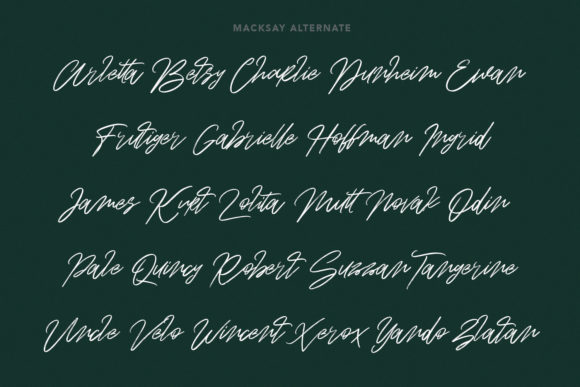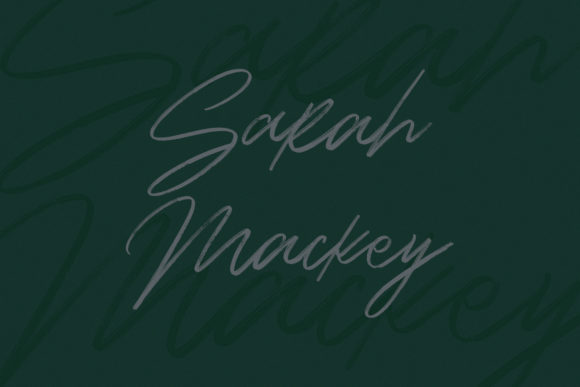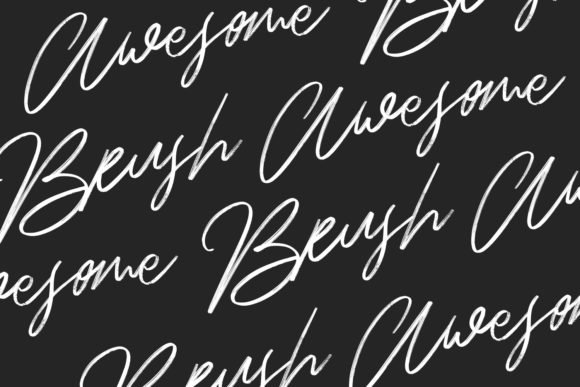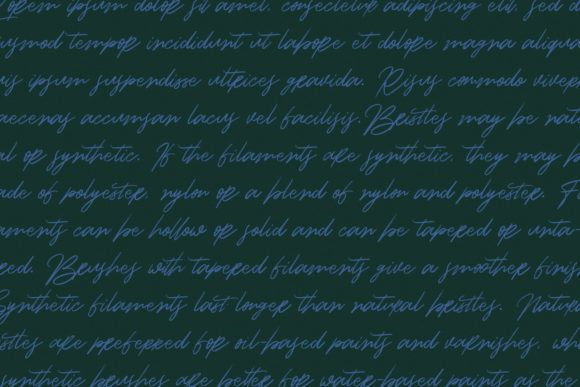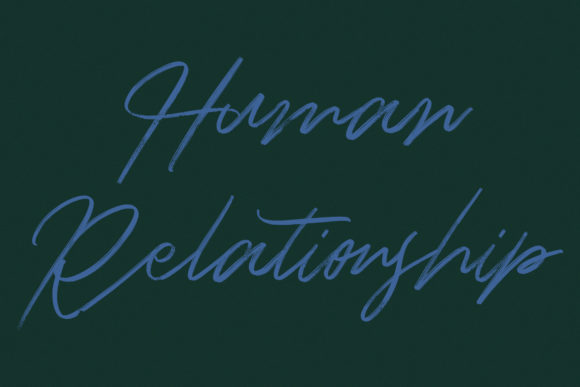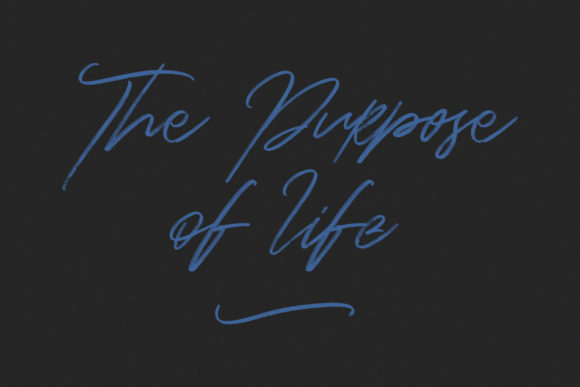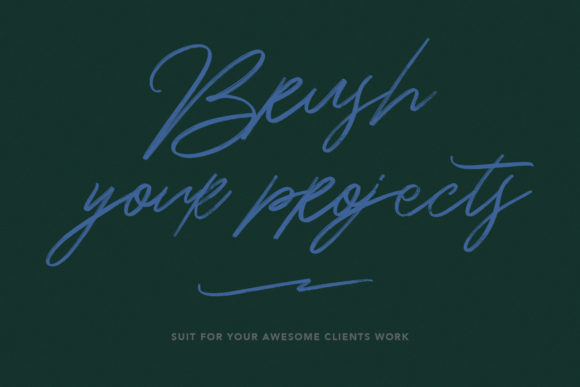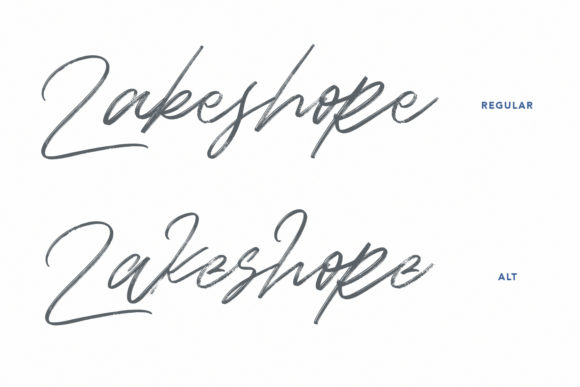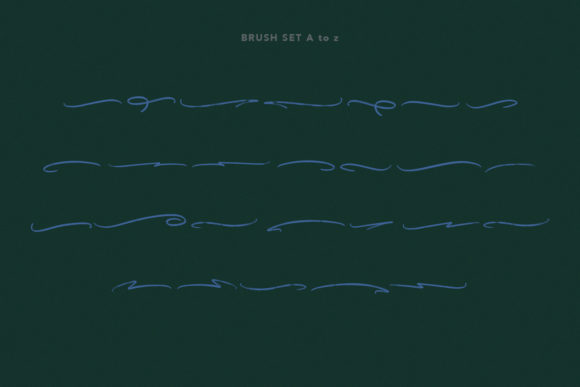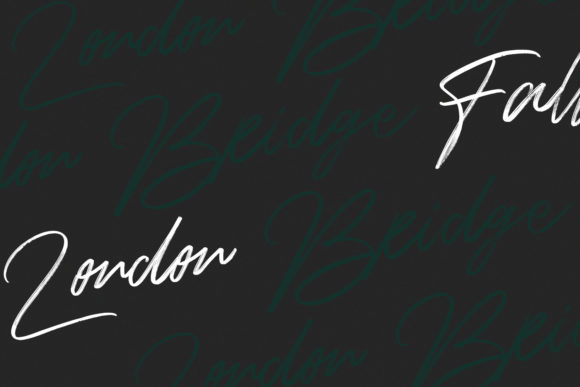
Macksay Font
About Macksay Font
Macksay sounds like a delightful and versatile font that can add a touch of romance and whimsy to a wide range of design projects. Here’s how Macksay can enhance different creative endeavors:
1. Wedding Invitations: Macksay’s romantic and whimsical style makes it a perfect choice for creating enchanting and memorable wedding invitations. Its elegant yet playful letterforms can set the tone for a beautiful celebration.
2. Thank You Cards: Expressing gratitude becomes even more charming with Macksay. Its unique and graceful design adds a sense of warmth and sincerity to thank you cards, making the recipients feel appreciated.
3. Quotes and Greeting Cards: Macksay’s romantic flair makes it an excellent option for quotes and greeting cards. Whether it’s an inspirational message or a heartfelt sentiment, Macksay infuses each word with a touch of magic.
4. Logos and Business Cards: For businesses seeking a touch of whimsy and creativity in their branding, Macksay can be a wonderful choice. Its romantic and playful elements add a memorable and personalized touch to logos and business cards.
5. Social Media Graphics: Macksay can make social media graphics stand out with its unique and captivating style. Whether used for Instagram posts, Facebook covers, or Pinterest graphics, Macksay adds a touch of elegance and enchantment to the visuals.
6. DIY Projects and Crafts: Incorporate Macksay into DIY projects and crafts to create personalized and charming designs. From handmade cards to art prints, Macksay adds a sense of joy and creativity to every creation.
7. Personalized Stationery: Design personalized stationery using Macksay to create a delightful and distinctive correspondence experience. Personal letters and notes become even more special with this font.
8. Website and Blog Design: Macksay’s romantic and whimsical feel can enhance website headers, blog post graphics, or navigation elements, giving the online presence a unique and captivating touch.
Overall, Macksay’s ability to add romance and whimsy to various designs makes it a versatile and engaging font choice. Its graceful and enchanting style brings a sense of joy and creativity to every design project, making it an excellent fit for any occasion that requires a personalized and charming touch.